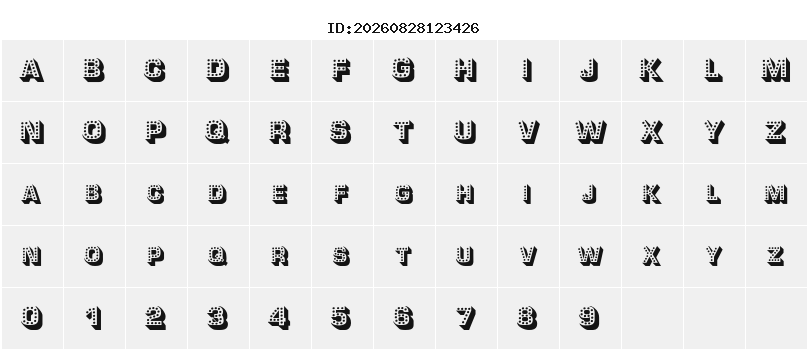
• Font Name: Tonight
• Full Font Name: Tonight
• Designer: Dieter Steffmann
• Description: Tonight ist eine mit "Gluehlampen" versehene Versal-Grotesk mit deutschen Umlauten. Sie verbreitet auf Plakaten oder aehnlichen Drucksachen "Kirmesatmosphaere"
Tonight.otf is a modern, elegant sans-serif font designed for ultimate readability and visual harmony. Perfect for branding, headlines, web design, and print materials.